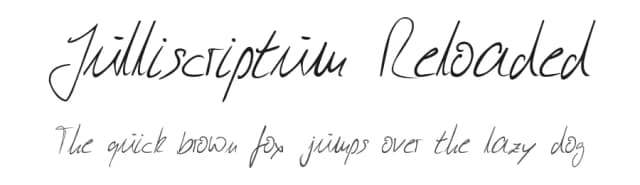
About Julliscriptum Font
Julliscriptum is a script & handwritten font designed by Julliversum. It includes 132 glyphs, a regular weight, TTF (TrueType) format, and 111 languages. Julliscriptum is free to download; check the license details on this page before commercial use. Script & handwritten fonts like Julliscriptum work best for wedding invitations, greeting cards, signatures, and elegant branding.
Julliscriptum Font is a script font that shines as a display or heading face. Pair it with a clean sans-serif or serif font for body text β the contrast creates a clear hierarchy while the two styles stay balanced and easy to read.
Julliscriptum Font
by Julliversum
Julliscriptum Font is a script handwritten typeface by Julliversum, ideal for logos, invitations, branding, and creative projects.